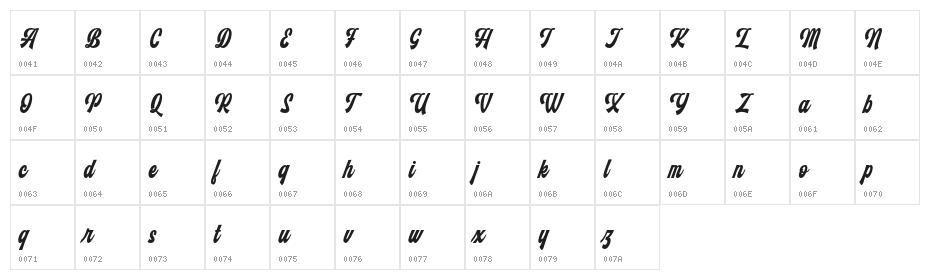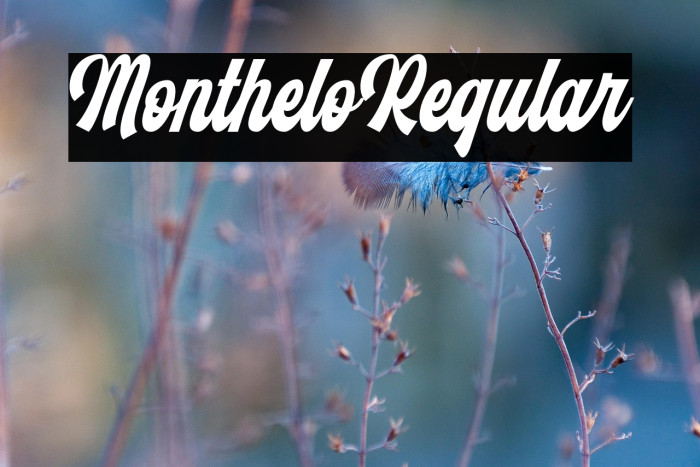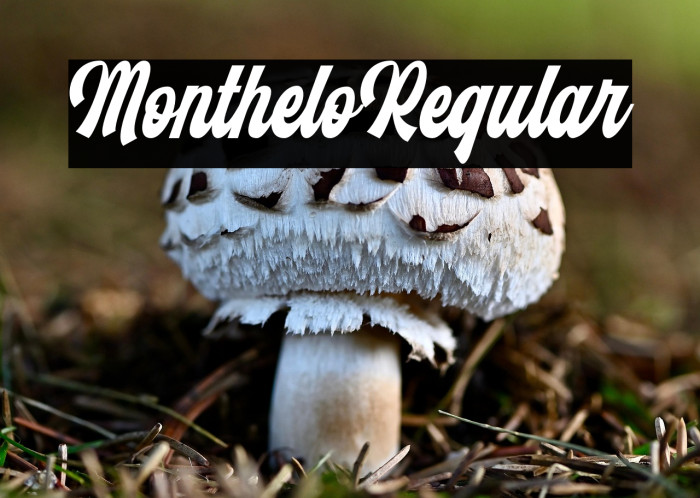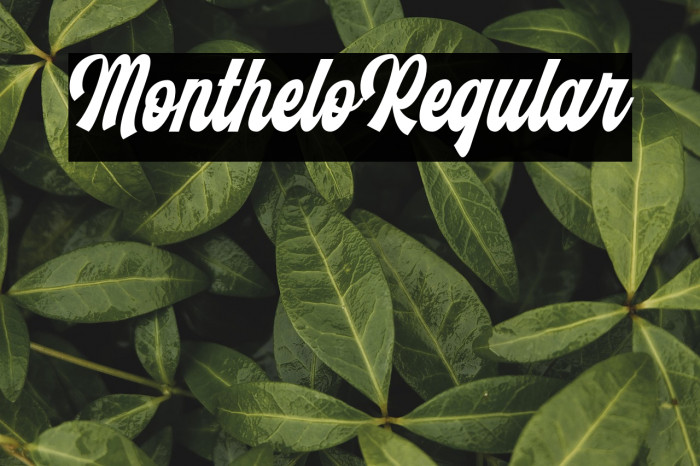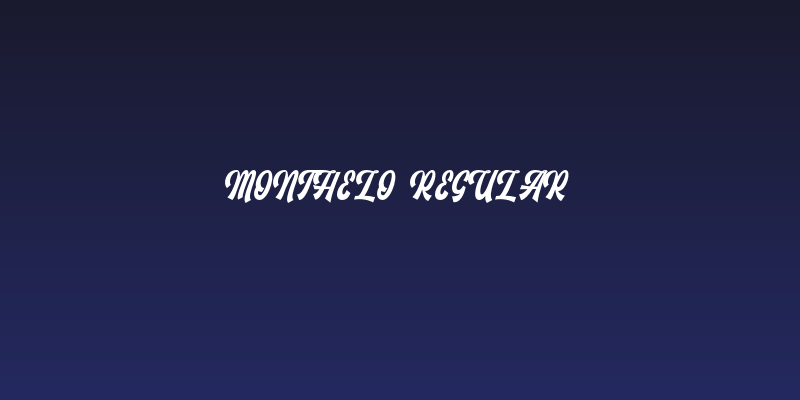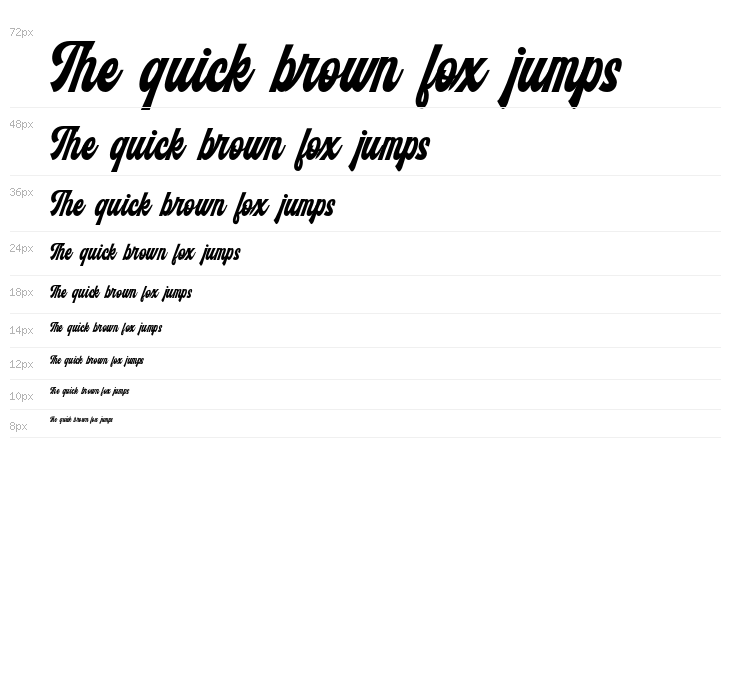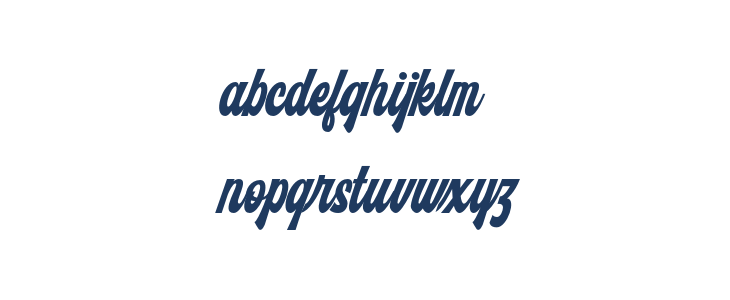
Monthelo-Regular Font
Monthelo-Regular Description
This font features a bold and dynamic script style with a strong presence. The characters are interconnected with elegant curves and flourishes, giving it a sense of movement and flow. The uppercase letters are particularly striking, with pronounced serifs and a slightly condensed form that adds to their impact. The lowercase letters maintain a consistent style, offering a harmonious blend with the uppercase. The numbers and special characters are designed to match the overall aesthetic, ensuring a cohesive look across all text elements. This font is ideal for creating eye-catching headlines or logos that require a touch of sophistication and flair.
| Proposed Projects | Ideal for branding, logos, headlines, and invitations where a sophisticated and bold script is desired. |